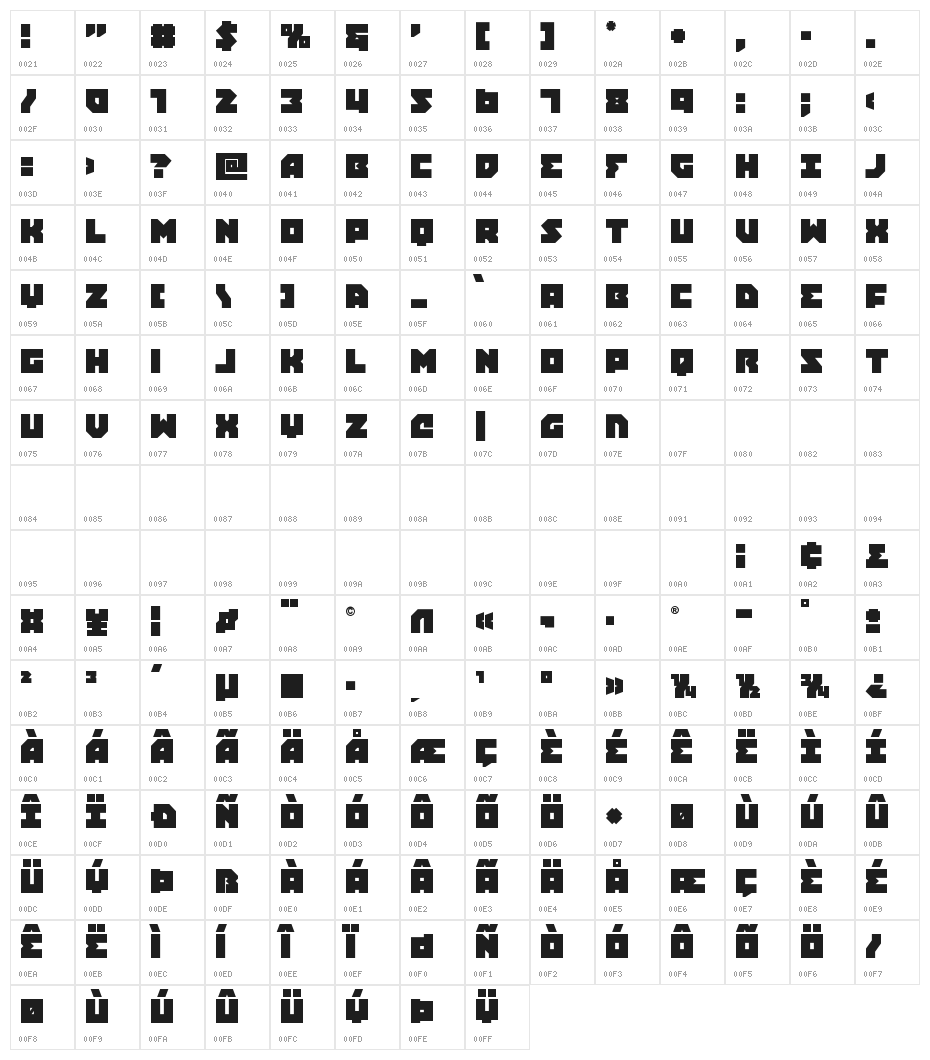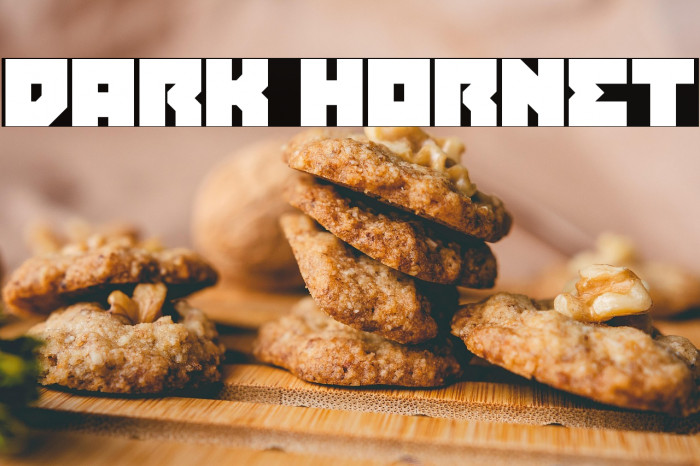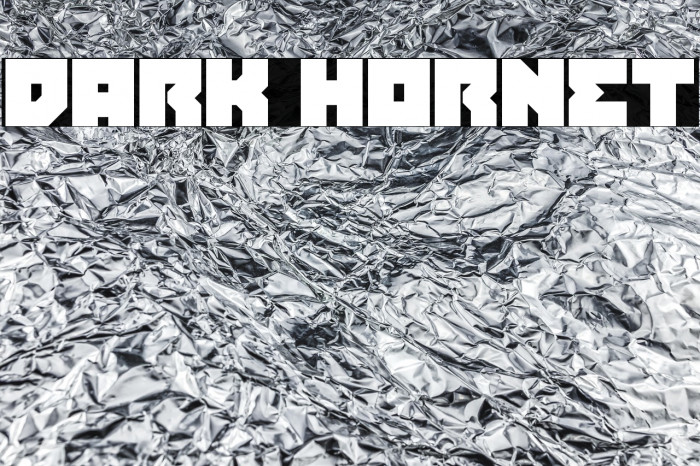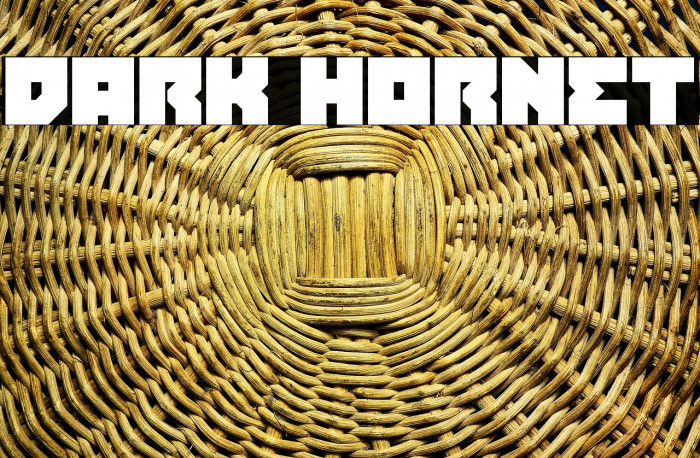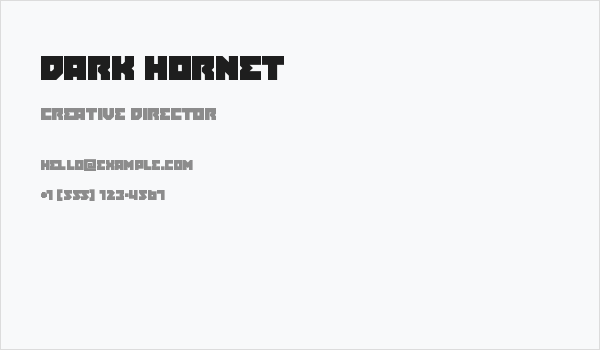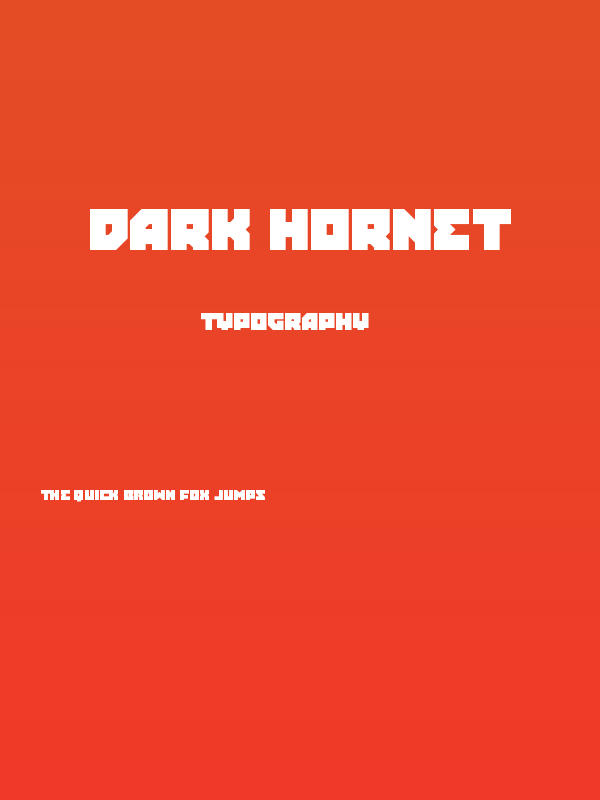
Dark Hornet Font
Dark Hornet Description
This font features a bold and angular design, characterized by sharp edges and a blocky appearance. The uppercase and lowercase letters maintain a consistent geometric style, with each character exhibiting a strong, impactful presence. The numbers and special characters follow the same design principles, ensuring uniformity across all elements. The font's distinct style is reminiscent of digital or futuristic themes, making it suitable for projects that require a modern and edgy look.
| Proposed Projects | Ideal for video game titles, tech branding, posters, and digital media that require a modern, bold aesthetic. |